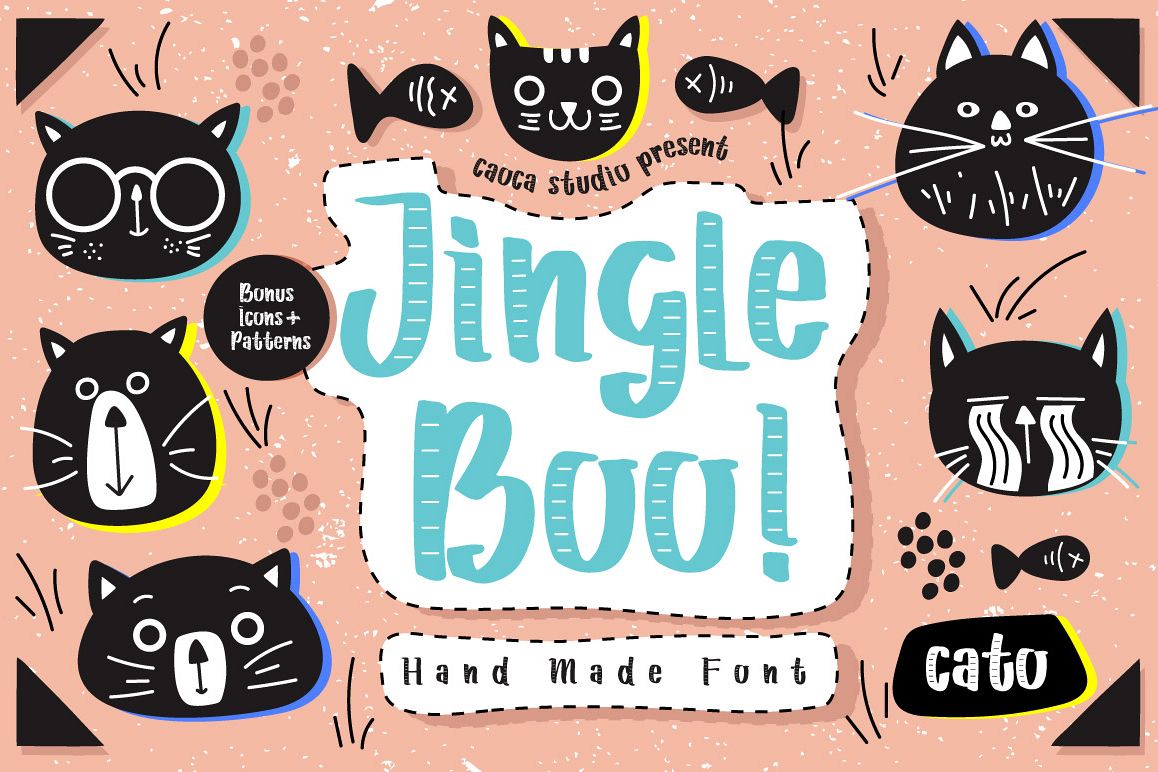
Hi there! Jingle boo is a handmade typeface for your daily design. Suitable for headline, children text book, poster, tag, decoration and many more. It came with 2 style fonts and some icon+pattern as bonus! You will get : 1. Jingle Boo otf.2. Jingle Boo ttf.3. Jingle Boo Plain otf. 4. Jingle Boo Plain ttf. 5. 10 Cat Icons (EPS 10)6. 3 Pattern (EPS 10 + JPG) With the icon you can freely create your own pattern mix with the adorable font. Thank you :)